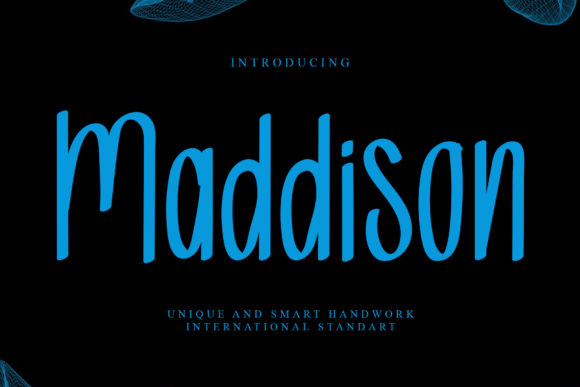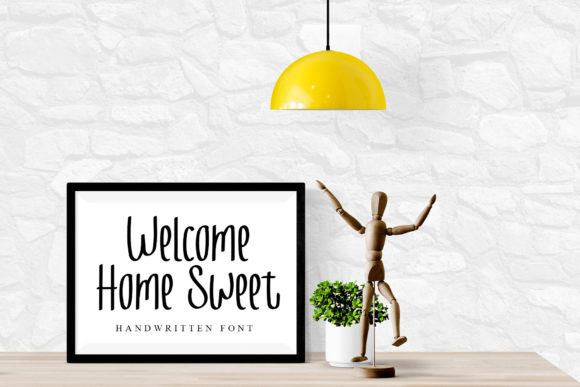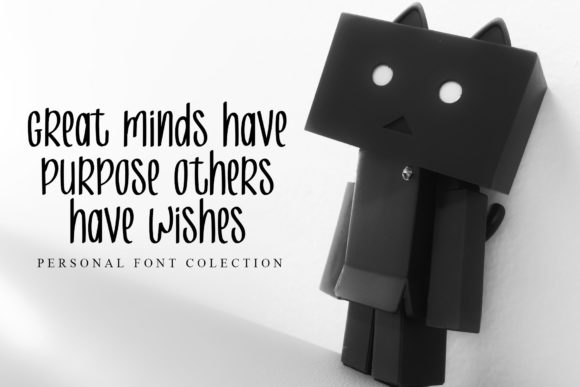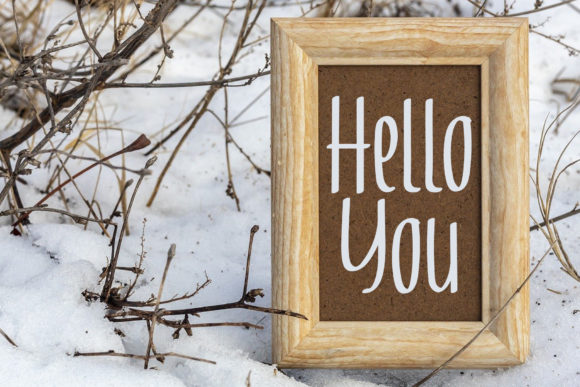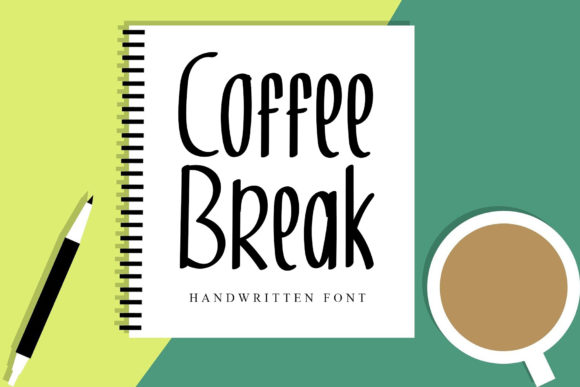
Maddison Font
About Maddison Font
Introducing Maddison, a unique and elegant handwritten font that will add a touch of sophistication and charm to your designs. With its graceful letterforms and stylish flair, this font is perfect for a wide range of applications, from invitation cards and greeting cards to billboards, logos, business cards, and more.
Maddison’s distinctive and elegant style sets it apart from other handwritten fonts. Its smooth and flowing lines create a sense of grace and sophistication, while still maintaining a personal and handwritten touch. Each letter has been carefully crafted to ensure clarity and readability, making it ideal for both small and large-scale designs.
Whether you’re designing wedding invitations, party events, or promotional materials, Maddison will bring an air of elegance and sophistication to your projects. The unique character of this font adds a sense of individuality and personality to your designs, making them stand out from the crowd.
The versatility of Maddison allows it to be used in various design contexts. Its elegant and timeless appearance makes it suitable for both formal and informal occasions. From romantic and whimsical designs to modern and minimalist layouts, Maddison adapts seamlessly to different themes and aesthetics.
Maddison is also versatile in terms of its usage. Its legible and well-balanced letterforms make it easy to read, ensuring that your message gets across effectively. Whether it’s in print or digital form, this font will make a lasting impression on your audience.
So, elevate your designs with the unique and elegant touch of Maddison. Let its graceful curves and stylish flair bring a touch of sophistication to your invitation cards, greeting cards, party events, billboards, logos, business cards, and more. With Maddison, your designs will exude an air of elegance and refinement that is sure to captivate and impress.